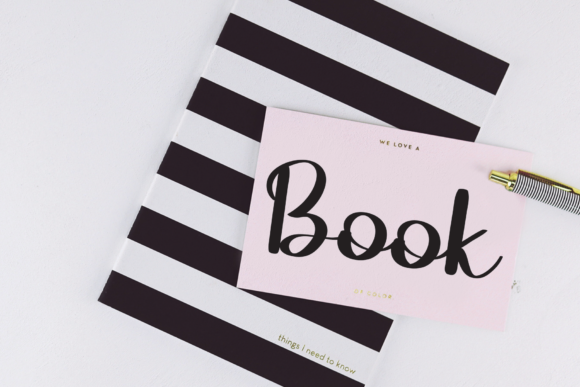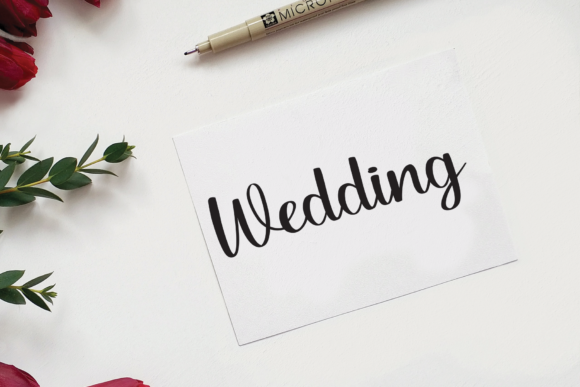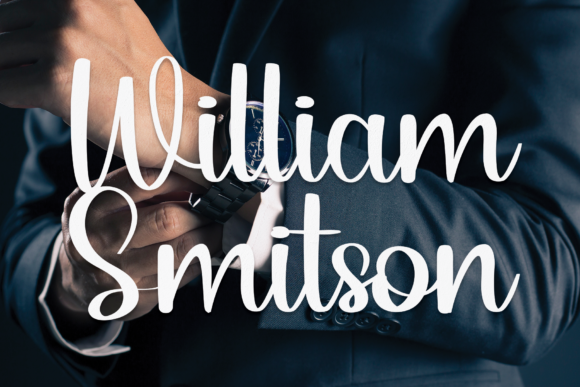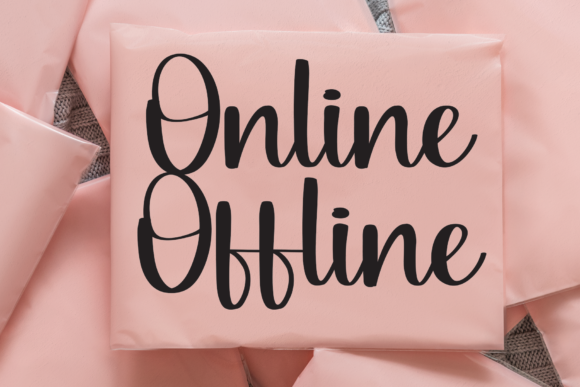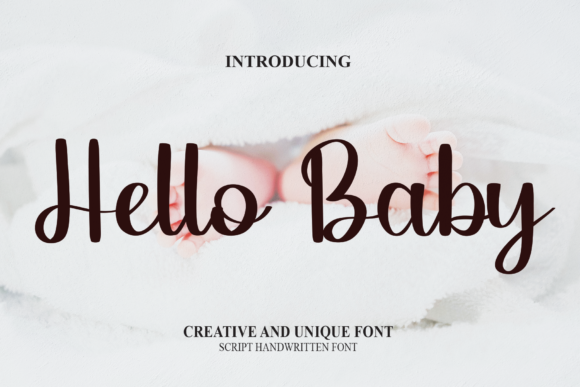
Hello Baby Font: The Playful Script Font for Your Creative Projects
Are you a designer or crafter looking for a font that adds a touch of playfulness and elegance to your creative projects? Look no further than the Hello Baby Font. This beautiful script font is perfect for a variety of design projects, including wedding invitations, thank you cards, quotes, greeting cards, logos, business cards, and more.
What is Hello Baby Font?
Hello Baby Font is a modern script font that features a playful and cursive style. It is designed to add a touch of sophistication and elegance to your designs, while also conveying a sense of fun and playfulness. The font is highly legible and versatile, making it perfect for a wide range of creative projects.
Key Features of Hello Baby Font
- Playful Script Style: Hello Baby Font features a playful script style that is perfect for adding a touch of elegance and sophistication to your designs.
- Highly Legible: The font is highly legible, making it perfect for use in a variety of design projects, including wedding invitations, greeting cards, and more.
- Versatile: Hello Baby Font is highly versatile and can be used for a wide range of creative projects, including logos, business cards, quotes, and more.
- Easily Customizable: The font is easily customizable, allowing you to adjust the size, color, and style to suit your design needs.
Uses of Hello Baby Font
Hello Baby Font is perfect for a variety of design projects, including:
- Wedding Invitations: The font is perfect for wedding invitations, adding a touch of elegance and sophistication to your design.
- Thank You Cards: Hello Baby Font is also great for thank you cards, allowing you to add a personal touch to your designs.
- Quotes: The font is perfect for use in quotes, adding a touch of playfulness and elegance to your designs.
- Greeting Cards: Hello Baby Font is great for use in greeting cards, allowing you to add a personal touch to your designs.
- Logos: The font is also perfect for use in logos, adding a touch of sophistication and elegance to your brand.
- Business Cards: Hello Baby Font is great for use in business cards, allowing you to add a personal touch to your designs.
Why Choose Hello Baby Font?
There are many reasons why you should choose Hello Baby Font for your design projects. Here are just a few:
- Unique and Playful Style: The font features a unique and playful style that is sure to make your designs stand out.
- Highly Legible: Hello Baby Font is highly legible, making it perfect for use in a variety of design projects.
- Versatile: The font is highly versatile and can be used for a wide range of creative projects.
- Easily Customizable: Hello Baby Font is easily customizable, allowing you to adjust the size, color, and style to suit your design needs.
Tips for Using Hello Baby Font
Here are a few tips for using Hello Baby Font in your design projects:
- Use it for Headings: Hello Baby Font is perfect for use in headings, adding a touch of elegance and sophistication to your designs.
- Pair it with Other Fonts: The font pairs well with other fonts, allowing you to create a unique and visually appealing design.
- Adjust the Size and Color: Adjust the size and color of the font to suit your design needs.
- Experiment with Different Styles: Experiment with different styles, such as bold and italic, to add a touch of playfulness to your designs.
Hello Baby Font is a beautiful and versatile script font that is perfect for a variety of design projects. Its playful and elegant style makes it perfect for adding a touch of sophistication and fun to your designs. With its highly legible and customizable features, Hello Baby Font is a great choice for designers and crafters looking to add a personal touch to their designs.